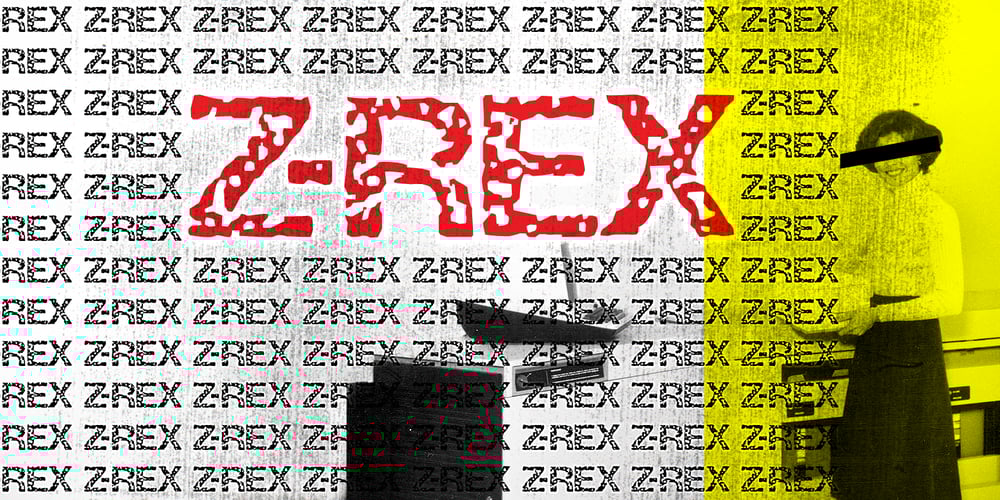
Z-Rex Font Family was designed by Todd Dever and published by Cool Fonts. Z-Rex contains 1 styles and family package options. Z-Rex looks like the copies I was getting from a lousy copier before I threw it out. You might think it has been eaten by a T-Rex, or maybe it looks like swiss cheese blech.